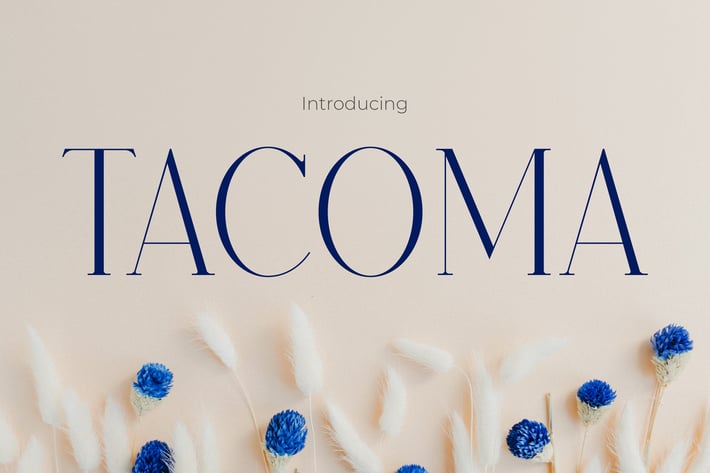
Tacoma - Elegance Modern Font
TACOMA – Luxury Serif Typeface
TACOMA is a high-contrast serif typeface with refined proportions and soft curves, designed for elegance-driven branding and editorial layouts. Its tall x-height, narrow spacing, and delicately flared serifs give it a polished, poised character — ideal for designers seeking a timeless yet contemporary feel. The overall tone is sophisticated and modern, perfect for fashion lookbooks, upscale menus, beauty packaging, and wedding invitations.
Whether you're crafting a minimalist skincare label or a stylish wedding suite, TACOMA brings clarity, grace, and harmony to every composition. Its striking contrast and sleek letterforms create a sense of refined hierarchy — perfect for high-end branding, lifestyle magazine spreads, and boutique identity systems. If you want your message to resonate with both class and clarity, this font makes it effortless.
Why Designers Choose TACOMA :
- Balanced elegance for upscale design work
- Slim letterforms with gentle, expressive flow
- High readability in both headers and mid-size text
- Stylish serifs with a fashion-forward edge